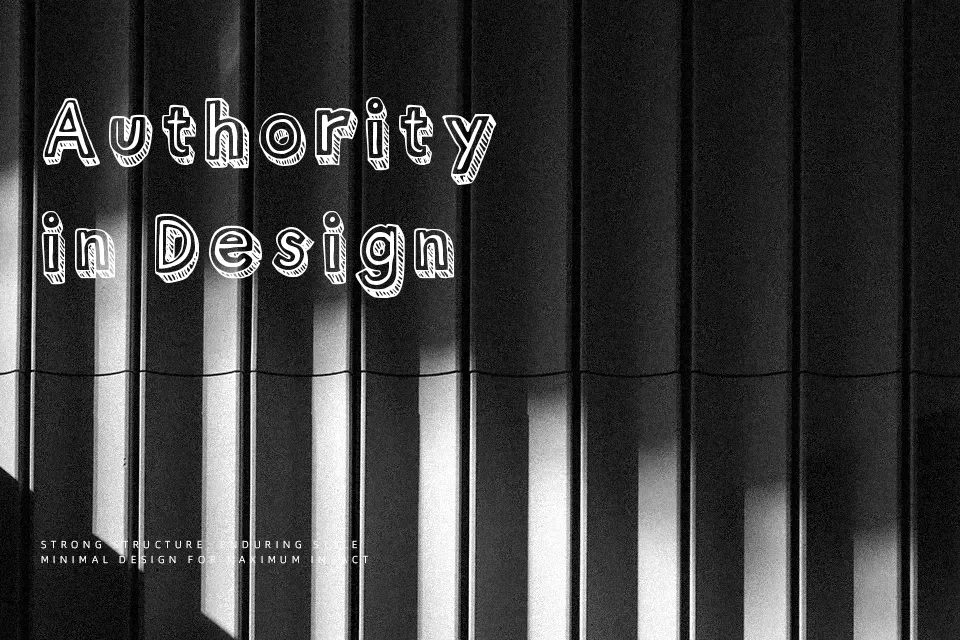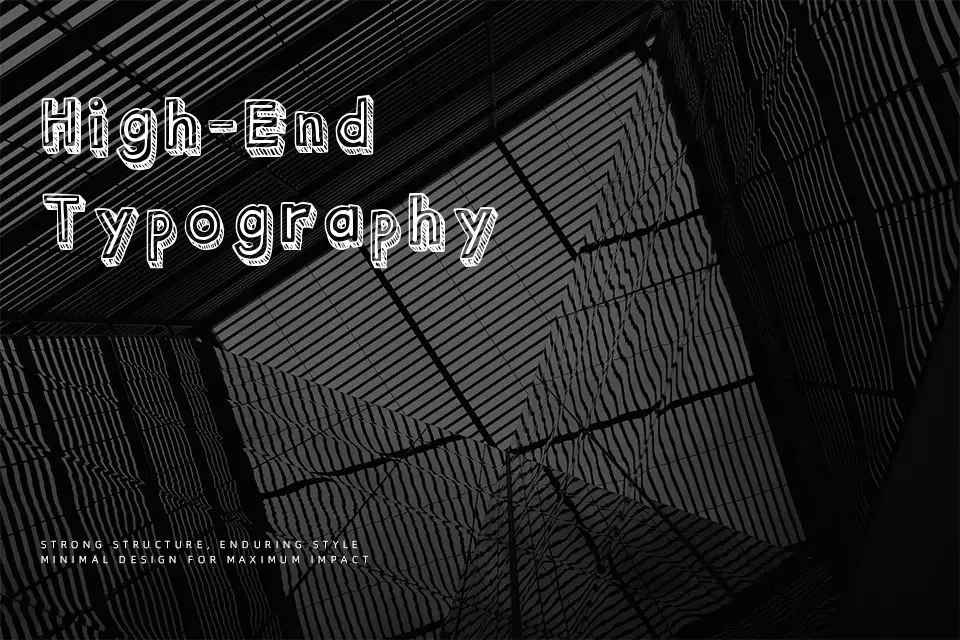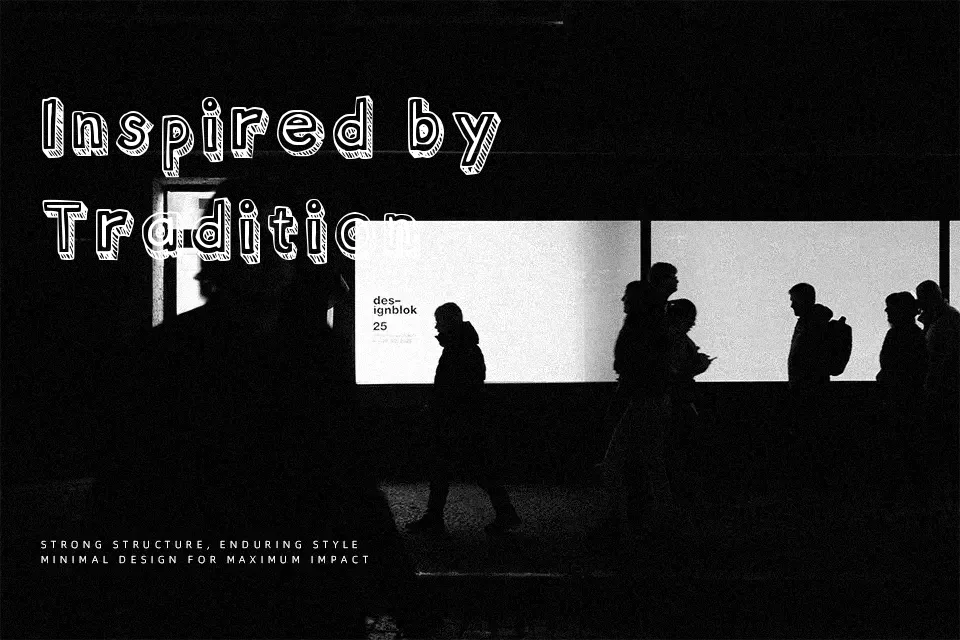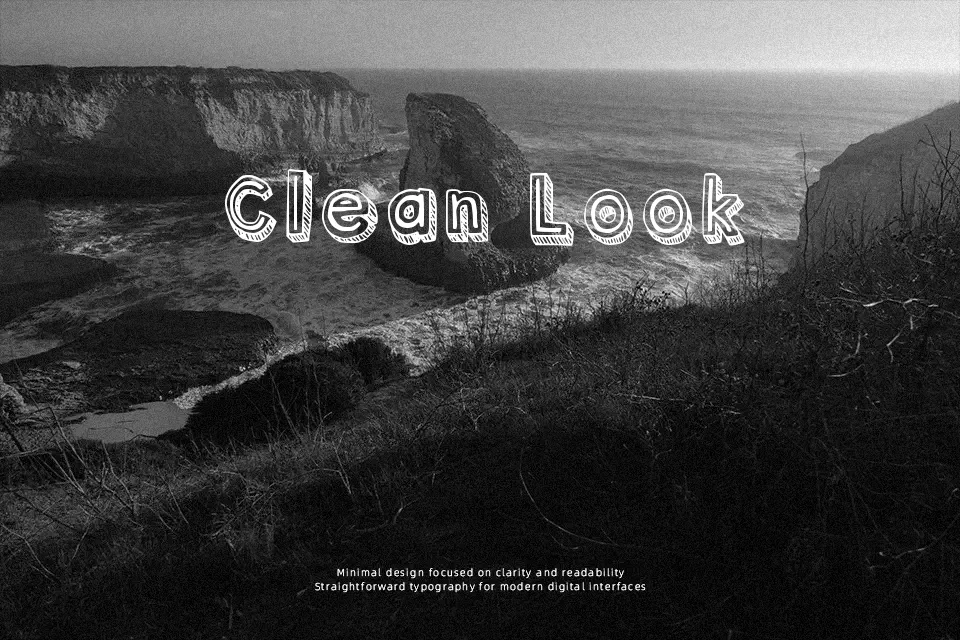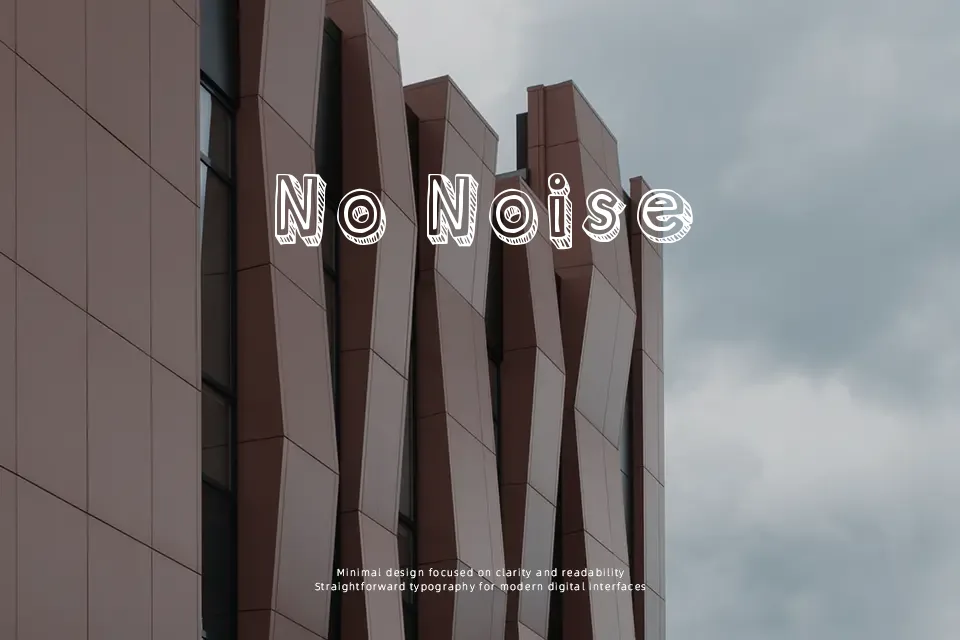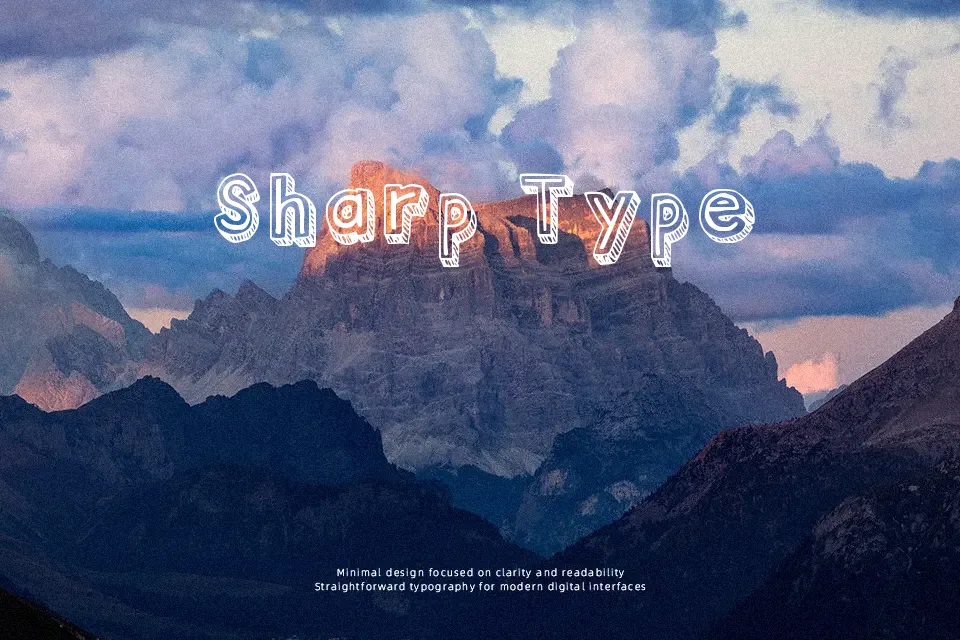
Outlyne Font
Outlyne uses open, outline-based letterforms that give short text a light, drawn appearance. The strokes are slim and consistently defined, while the generous internal space keeps individual characters distinguishable at display sizes. Its proportions create an airy rhythm rather than a dense text texture, making it practical for posters, cover artwork, and brief headline treatments. The typeface reads most clearly when given enough scale and contrast against its background. Fine outlined details become less dependable in small captions, dense layouts, or extended passages, where the letterforms can lose visual presence.
Best For: event poster titles,album cover typography,social media graphics,creative packaging headers
Perfect for headline, packaging, and poster, with a artistic and decorative style.